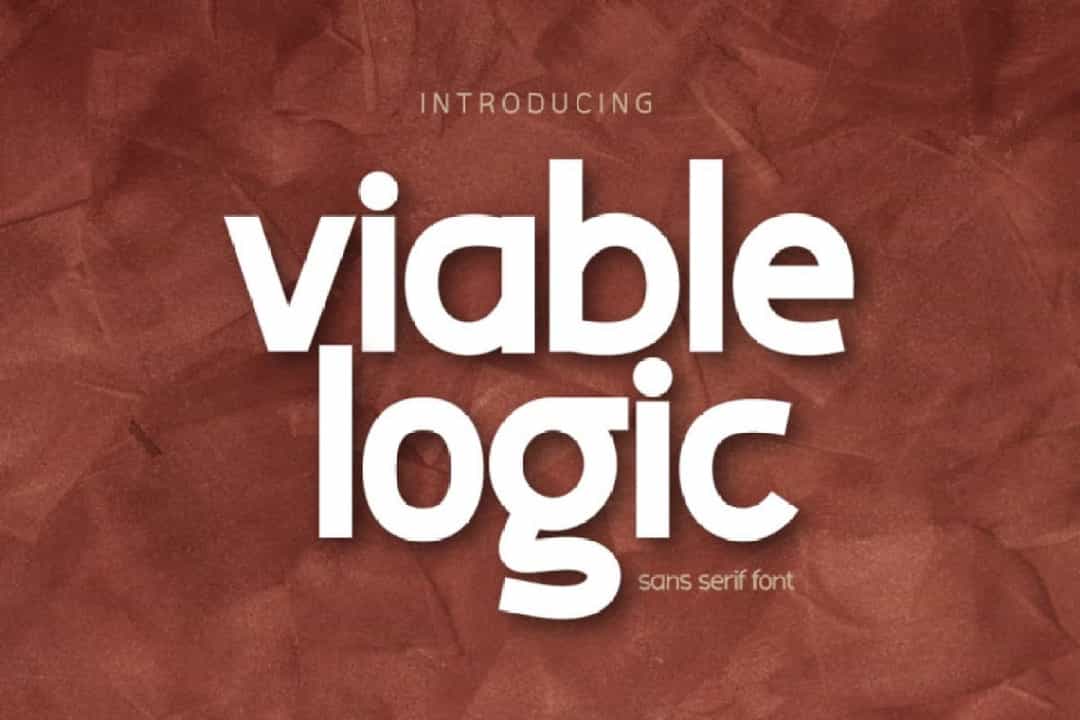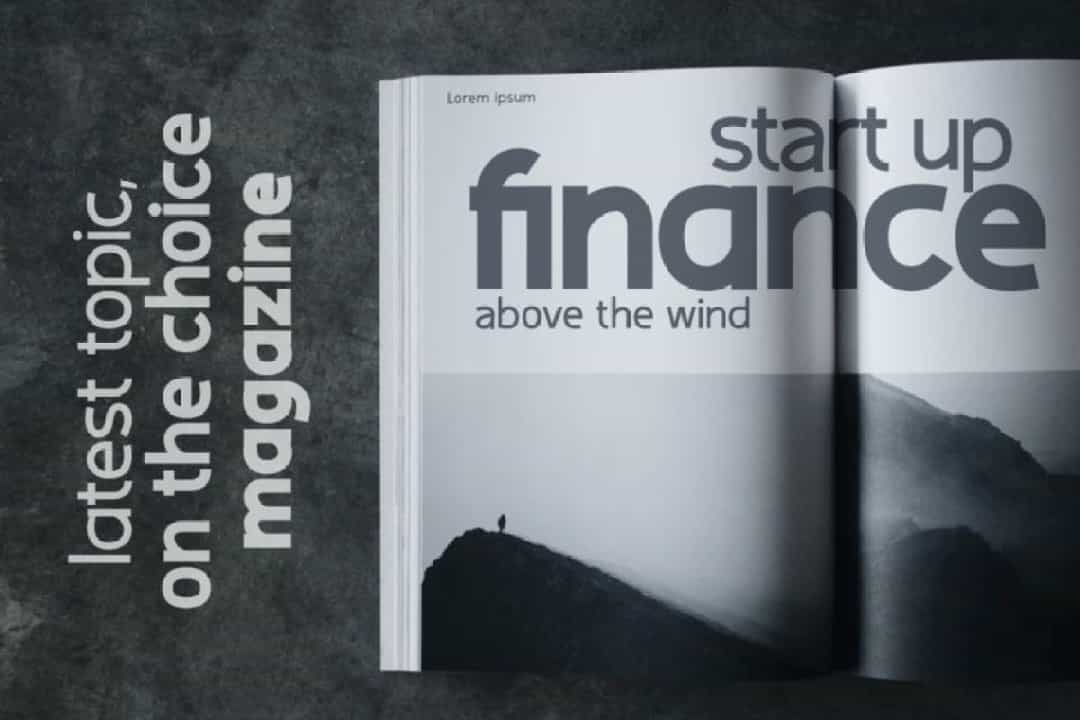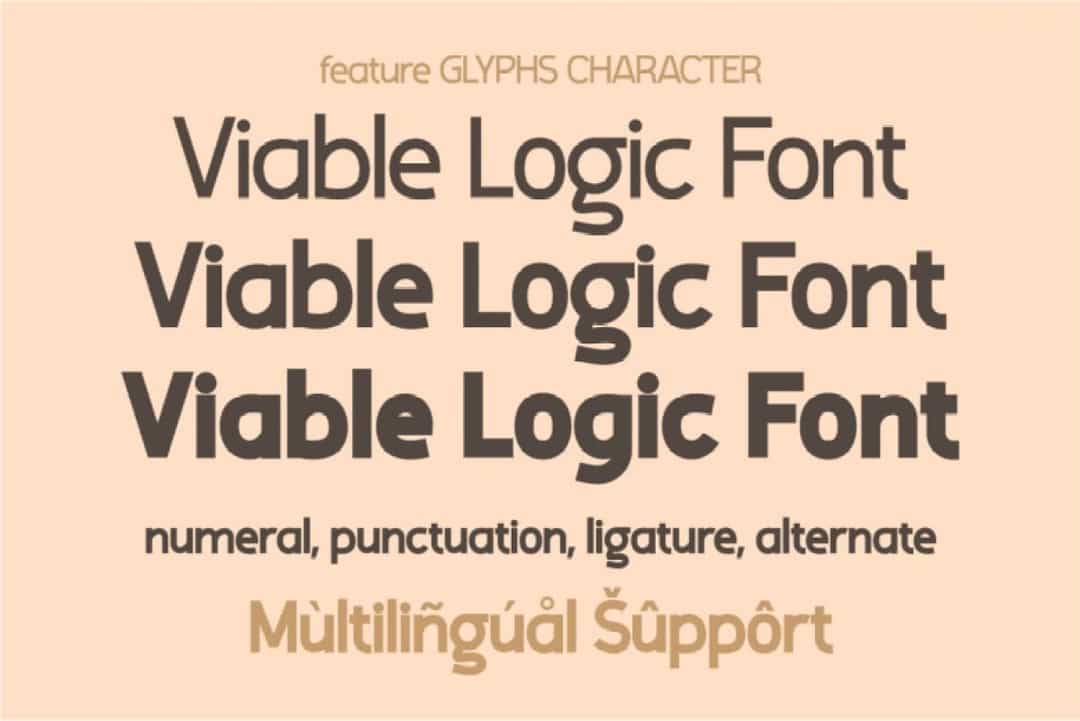
Discover Viable Logic Font, part of the Sans Serif Basic Personal collection—a versatile and unique font perfect for adding a personal touch to your projects. Download it for free and enjoy crafting designs with style, from invitations to social media posts. This font is available exclusively for personal use, giving you the freedom to create without limits. Unlock your creativity with Viable Logic Font today!
The font used in the Viable Logic Sans Serif. Some of the recent fonts are the new sans serif fonts which are becoming more popular as the consumers seek new font designs with thick, thin and bold characters as the members of the sans serif font families. This font provides its users with the aspect of simplicity with an added touch of style – producing a classy and modern look in its users’ projects and giving it a unique look that is quite appealing.